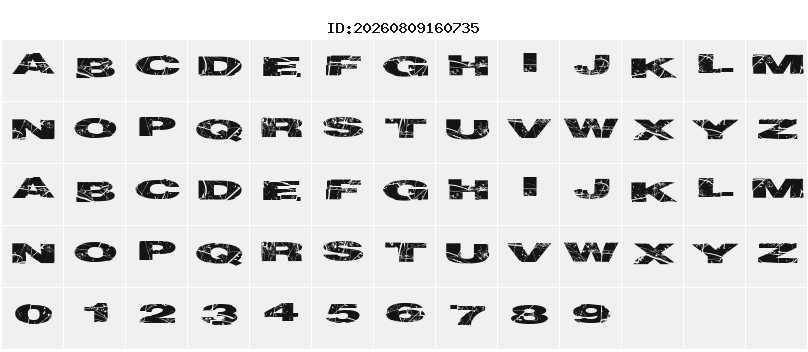
• Font Name: ParticlePhysics
• Designer: max infeld
• Manufacturer: xerographer.com
• Description: Made in Ojai,california
About ParticlePhysics.ttf
ParticlePhysics.ttf is a modern, elegant sans-serif font designed for ultimate readability and visual harmony. Perfect for branding, headlines, web design, and print materials.